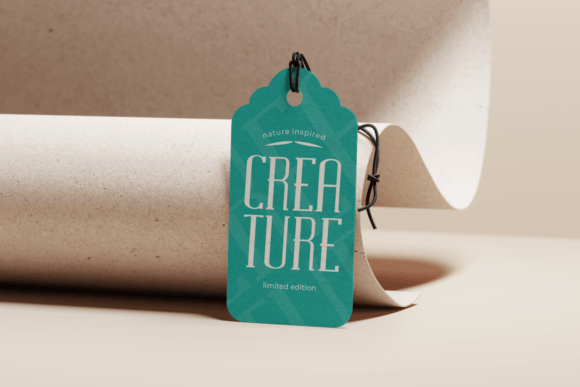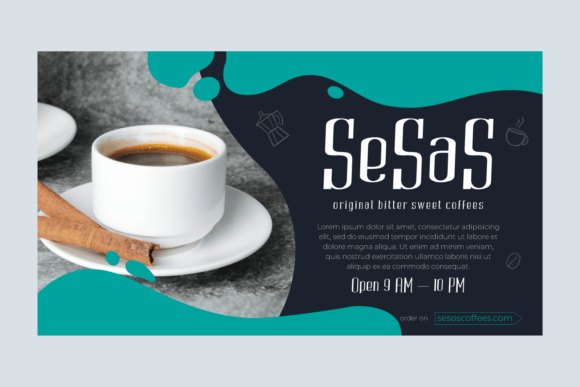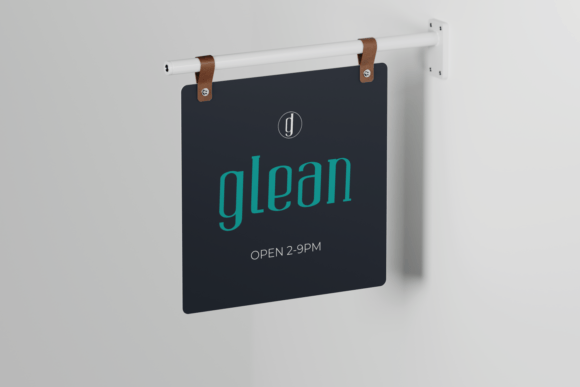
Introduction to Megasun Font
Megasun is a unique and exquisite serif font that brings a touch of elegance and sophistication to any design.
Its intricate and distinctive design is perfect for creating a memorable and refined look Ideal for editorial design, branding, and other designs that require a luxurious and high-end feel.
Key Features of Megasun Font
Why Choose Megasun Font?